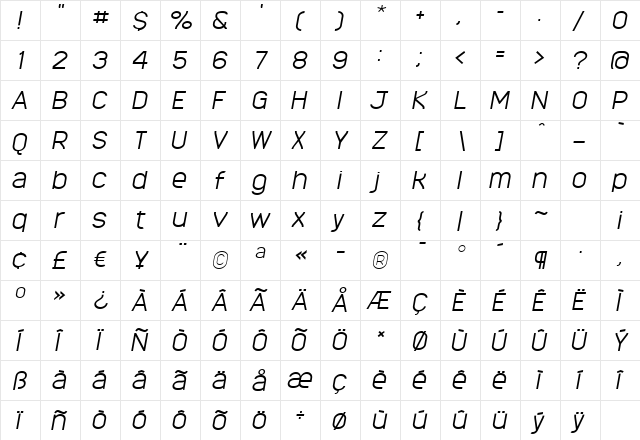
MonarkLight Oblique Regular
Design Context for MonarkLight Oblique Typeface
MonarkLight Oblique is a composed and adaptable typeface that performs quietly and consistently across a wide range of design contexts. The dynamic lean of this cut emphasises speed and emphasis in any layout. Its slender proportions lend an understated elegance to any composition.
Pro Tip: Use MonarkLight Oblique for emphasis, pull quotes, and subheadings where its slanted energy can add rhythm to the layout.